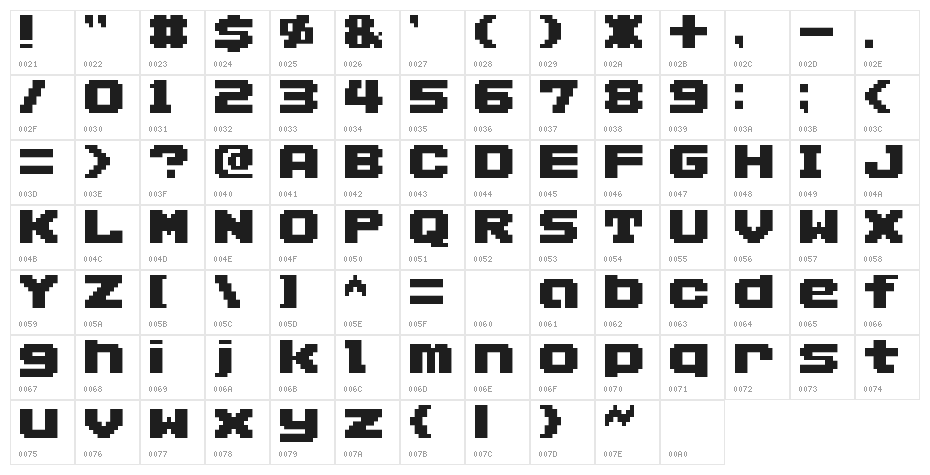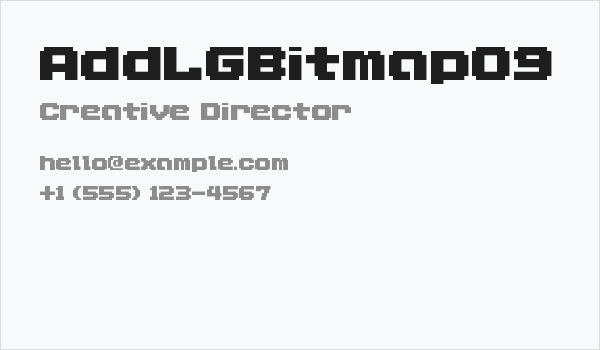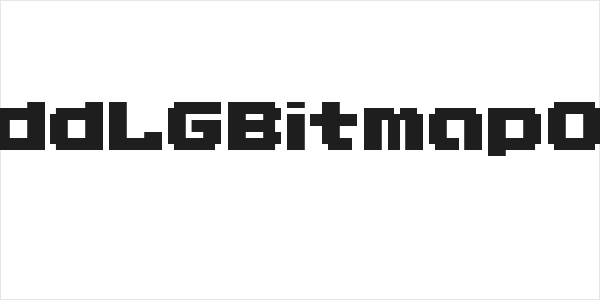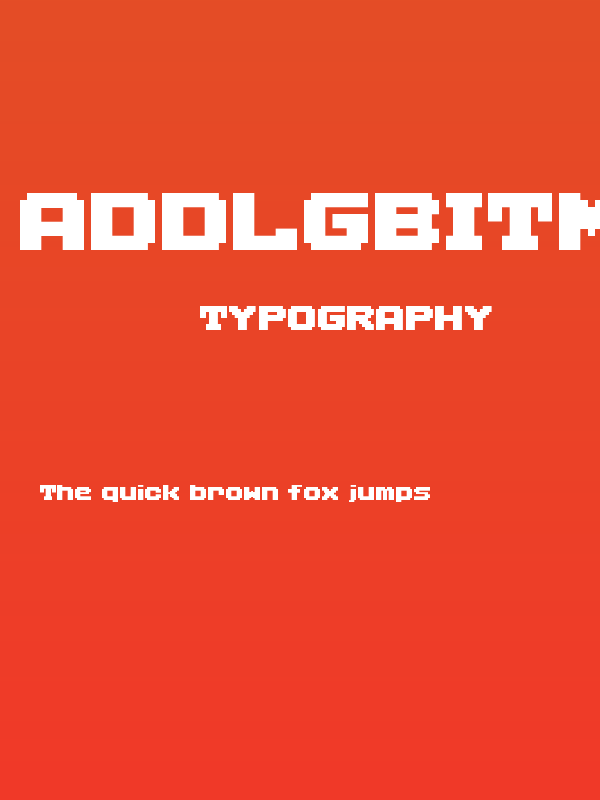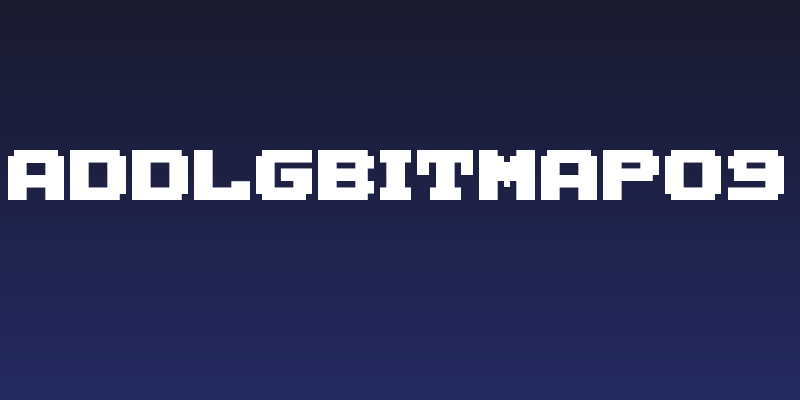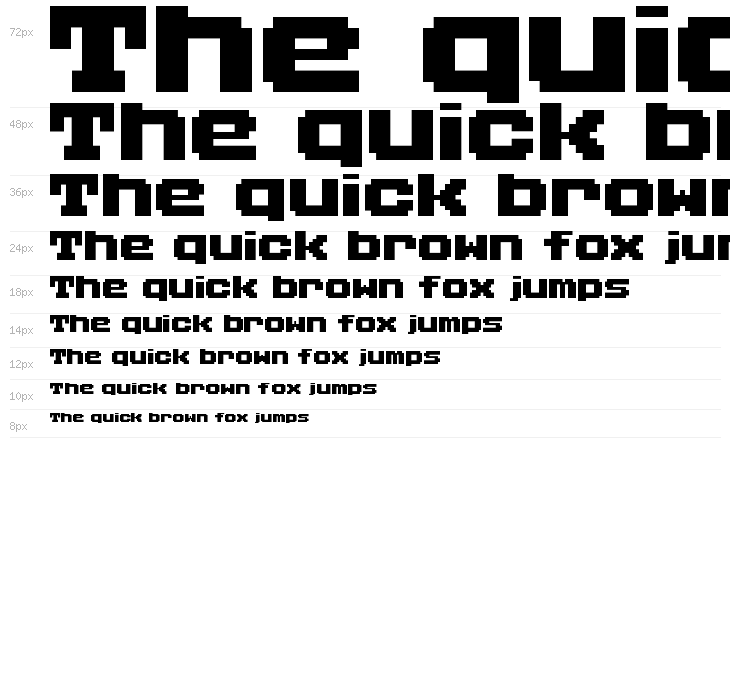
AddLGBitmap09 Font
This font features a bold, pixelated style reminiscent of early digital and arcade aesthetics. Each character is constructed with a blocky, grid-like appearance, giving it a retro, video game feel. The uppercase and lowercase letters maintain a consistent height and width, emphasizing uniformity and simplicity. Numbers and special characters follow the same pixelated design, ensuring a cohesive look across all glyphs. The font's distinct, chunky appearance makes it ideal for projects that aim to evoke nostalgia or a digital theme.
Overall StyleVintage
Proposed ProjectsIdeal for retro video game designs, digital-themed posters, and nostalgic branding projects.